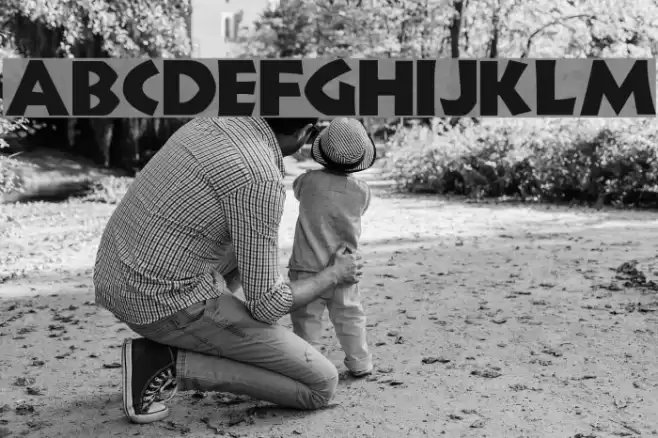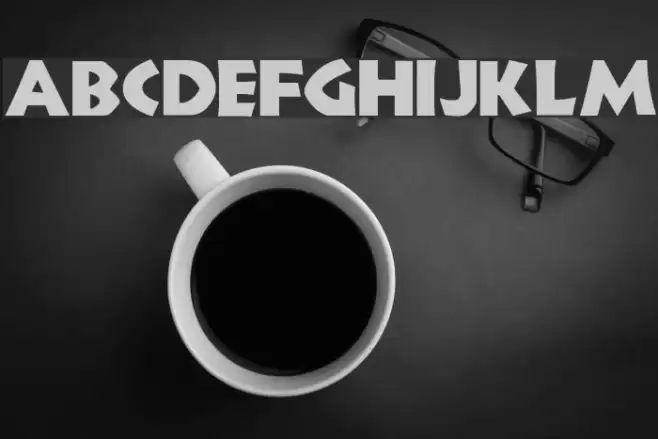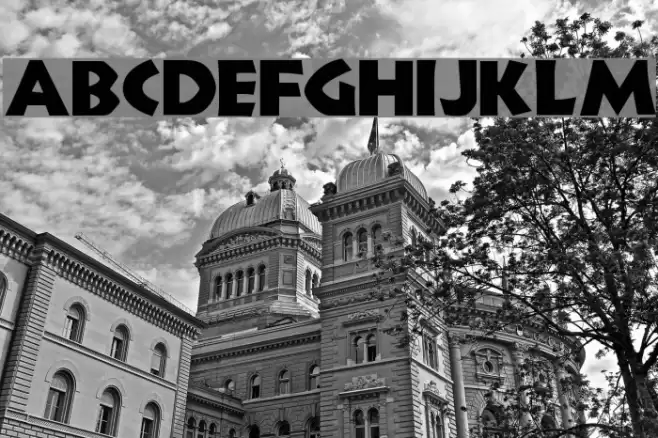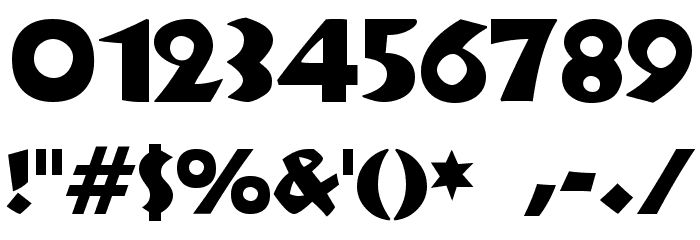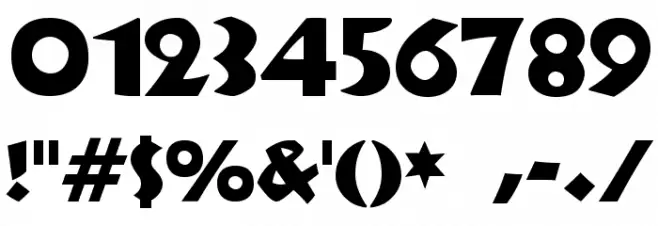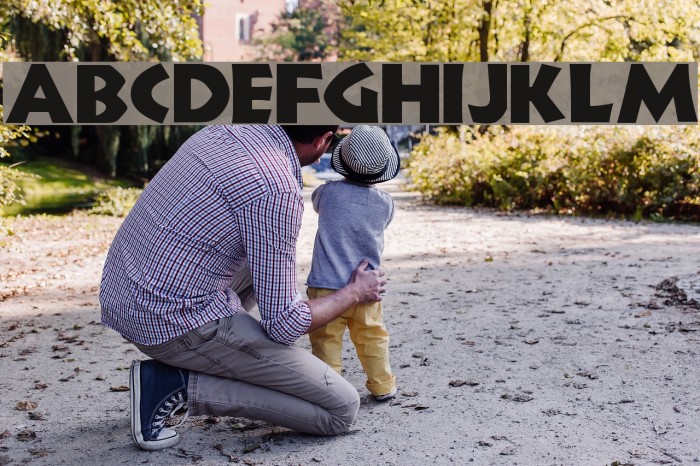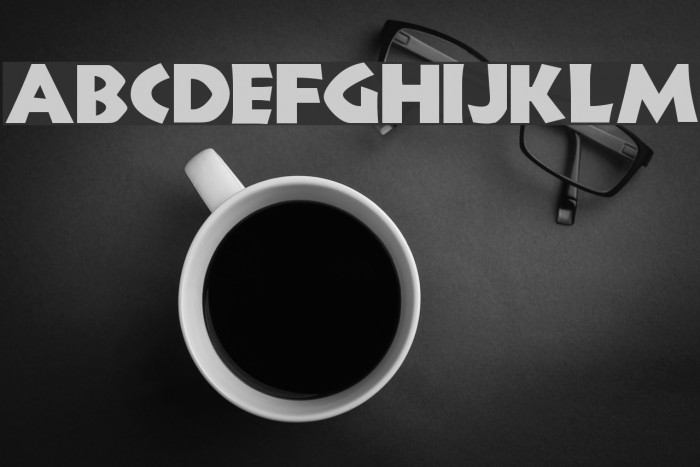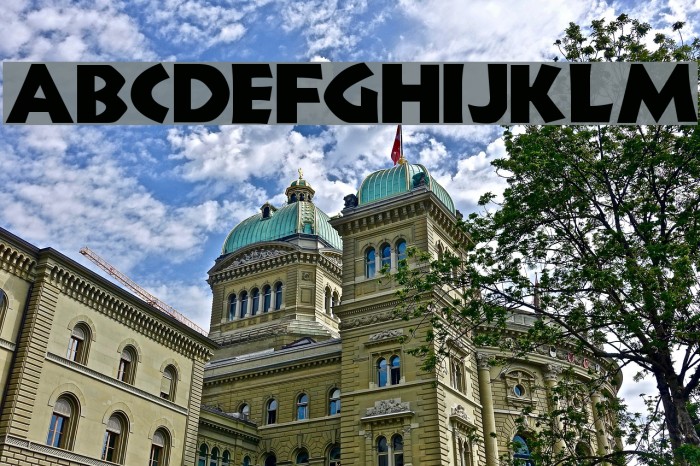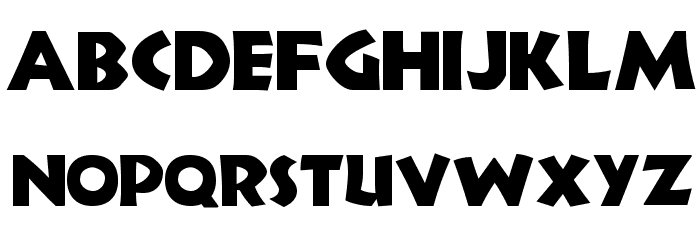
Newland Font
Newland Description
This font features bold, angular characters with a distinct geometric style. The uppercase letters are particularly striking, with sharp edges and a strong presence. The numbers and special characters maintain this bold aesthetic, making them stand out prominently. The overall design is modern and dynamic, suitable for attention-grabbing headlines or logos. The characters are tightly spaced, enhancing the bold impact of the text. This font is ideal for projects that require a strong visual statement.
A bold, geometric font with angular characters and a modern style from Capitals fonts.
- Proposed Projects: Ideal for branding, posters, headlines, and logos that require a bold and modern look.
- Character Spacing: Tight